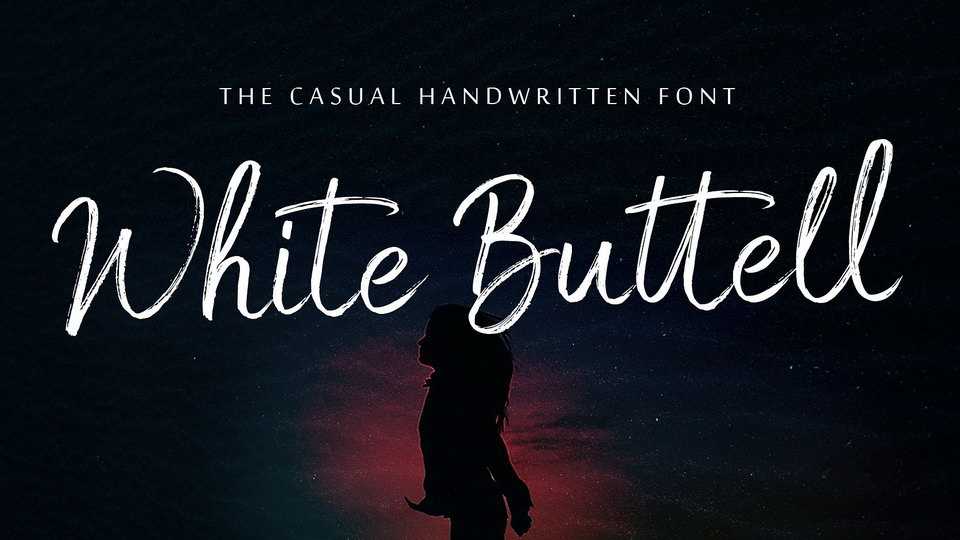
Download White Buttell font, a handwritten brush script font with a natural style of dry marker, great for branding, advertising, posters, logo, book covers, magazines, packaging, website headers, greeting cards, apparel designs and more.